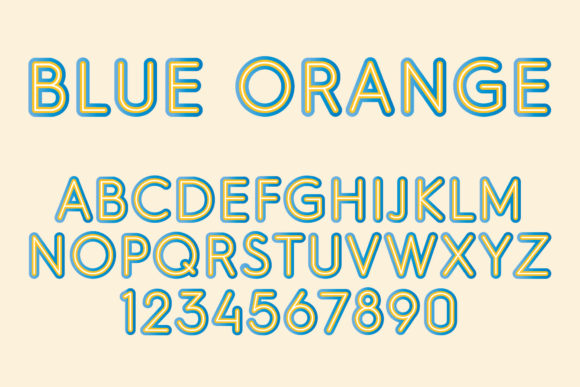
Introducing the remarkable Blue Orange font - a vibrant collection of hues that will infuse your designs with unparalleled flair and individuality! Unleash your creativity as you witness the magic unfold, transforming your projects into visually stunning masterpieces.
Immerse yourself in a symphony of colors and let your imagination soar. With Blue Orange, the possibilities are endless. Craft eye-catching logos that radiate personality, design captivating social media graphics that demand attention, and create unforgettable invitations and cards that leave a lasting impression.
Blue Orange is not just a font; it's a gateway to a world of design brilliance. Its versatility knows no bounds, making it the perfect choice for both personal and professional projects. Add a touch of whimsy to your blog posts, create unique and memorable branding materials, or elevate your presentations with a splash of color.
With Blue Orange, you'll never settle for ordinary again. Embrace the extraordinary and let your designs shine with unprecedented boldness. Join the ranks of satisfied creators who have discovered the transformative power of Blue Orange and unlock your creative potential like never before.